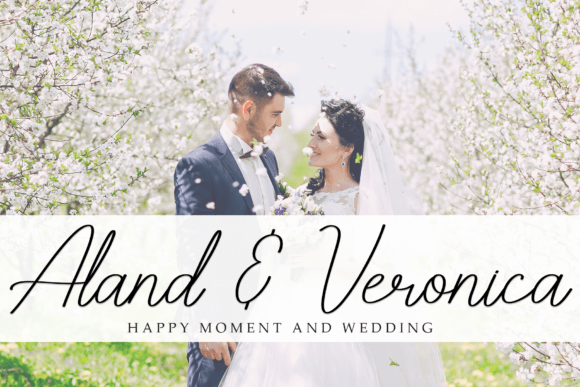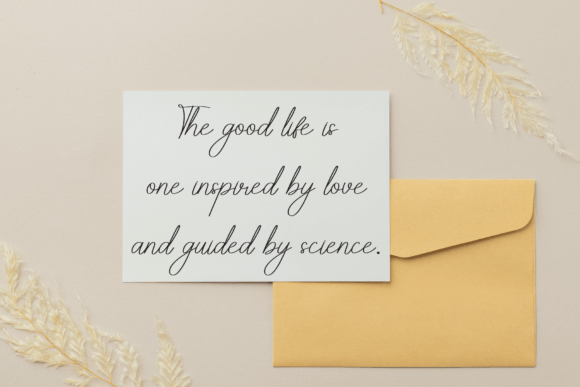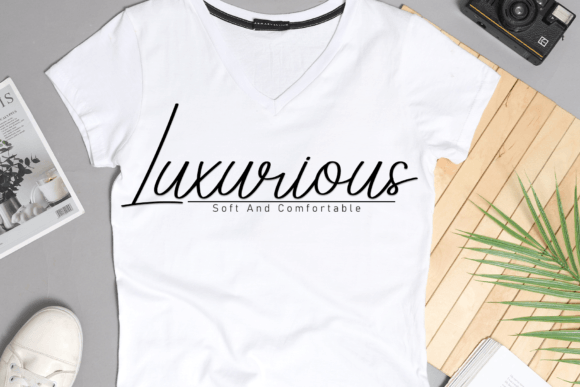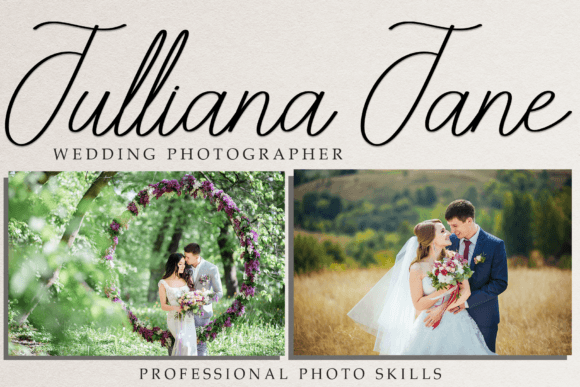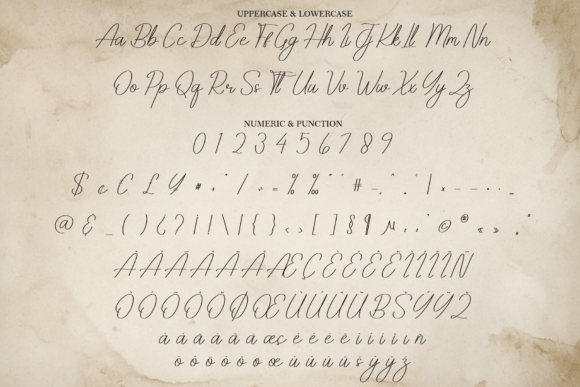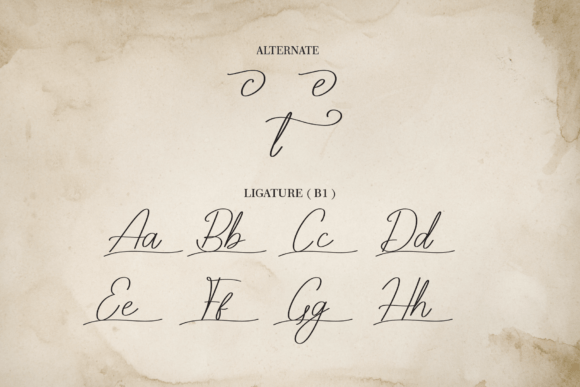
Discover the Charm of Antique Font: A Sweet and Friendly Handwritten Delight
Are you a designer or crafter looking for a font that adds a touch of elegance and whimsy to your projects? Look no further than Antique Font, a beautiful handwritten font that’s perfect for creating stunning wedding invitations, cards, and other designs that require a lovely touch. In this article, we’ll dive into the world of Antique Font, exploring its features, benefits, and uses, as well as providing tips and inspiration for incorporating it into your work.
What is Antique Font?
Antique Font is a sweet and friendly handwritten font that’s fresh and casual, making it ideal for a wide range of design projects. Its unique charm lies in its ability to evoke a sense of nostalgia and romance, while still feeling modern and approachable. Whether you’re creating wedding invitations, greeting cards, or social media graphics, Antique Font is sure to add a touch of warmth and personality to your designs.
Key Features of Antique Font
- Handwritten style: Antique Font boasts a beautiful, handwritten style that’s reminiscent of traditional calligraphy.
- Sweet and friendly: The font’s sweet and friendly tone makes it perfect for designs that require a personal touch.
- Fresh and casual: Antique Font’s fresh and casual vibe ensures it will appeal to a wide range of audiences and design styles.
- Highly versatile: This font can be used for a variety of design projects, from wedding invitations and cards to social media graphics and more.
Benefits of Using Antique Font
So, why choose Antique Font for your design projects? Here are just a few benefits of using this lovely font:
- Adds a personal touch: Antique Font’s handwritten style adds a personal touch to your designs, making them feel more approachable and engaging.
- Evokes emotion: The font’s sweet and friendly tone can evoke emotions and create a sense of connection with your audience.
- Versatile and adaptable: Antique Font can be used in a variety of design styles and contexts, making it a great addition to your font library.
- Easy to read: Despite its ornate style, Antique Font is surprisingly easy to read, making it perfect for body text and longer designs.
Using Antique Font in Your Designs
Now that we’ve explored the features and benefits of Antique Font, let’s talk about how to use it in your designs. Here are a few tips and ideas to get you started:
- Wedding invitations: Antique Font is perfect for creating beautiful, elegant wedding invitations that set the tone for a special day.
- Greeting cards: Use Antique Font to create heartfelt, personalized greeting cards for any occasion.
- Social media graphics: Add a touch of whimsy and personality to your social media graphics with Antique Font.
- Branding and packaging: Consider using Antique Font for branding and packaging design to add a touch of elegance and sophistication.
Tips for Working with Antique Font
To get the most out of Antique Font, here are a few tips to keep in mind:
- Experiment with sizes and colors: Play around with different sizes and colors to find the perfect combination for your design.
- Pair with complementary fonts: Consider pairing Antique Font with complementary fonts to create visual interest and hierarchy.
- Use it sparingly: While Antique Font is beautiful, it can be overwhelming if overused. Use it sparingly to create emphasis and add a touch of elegance.
In conclusion, Antique Font is a sweet and friendly handwritten font that’s perfect for designers and crafters looking to add a touch of elegance and whimsy to their projects. With its unique charm, versatility, and ease of use, Antique Font is sure to become a favorite in your font library. Whether you’re creating wedding invitations, cards, or social media graphics, Antique Font is the perfect choice for adding a lovely touch to your designs.